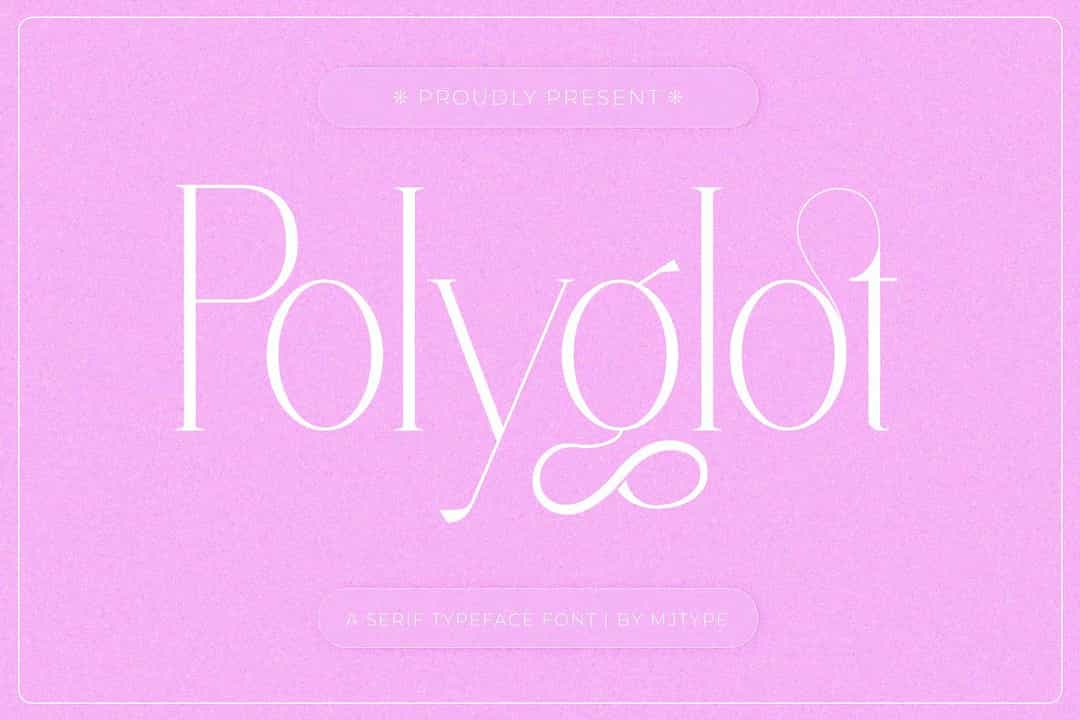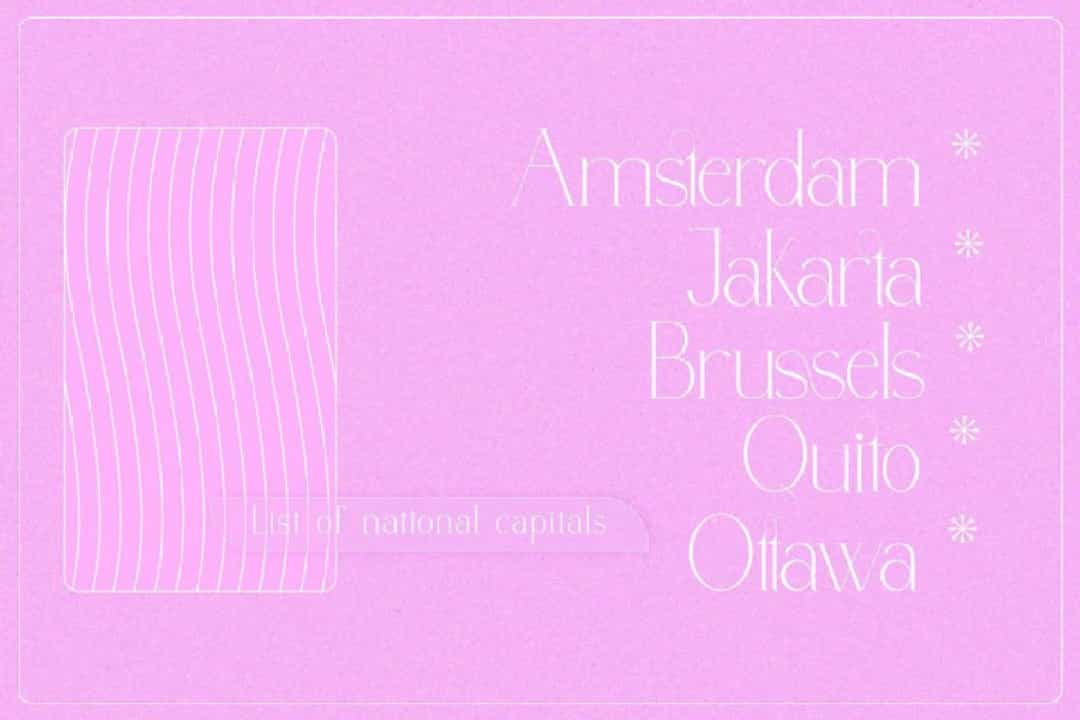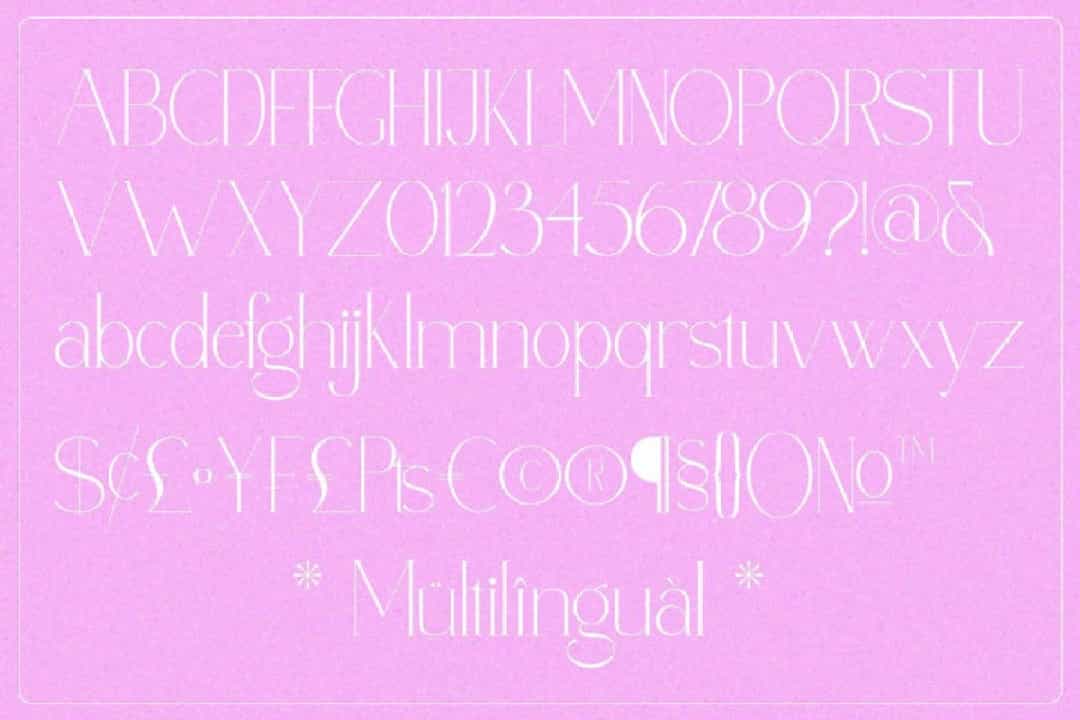
Polyglot is an exclusive and trendy serif typeface, complete with various lowercase and uppercase ligatures for use across multilingual languages. Straight lines and an elongated curve combine elegantly for a simplistic and refined style in this typeface.